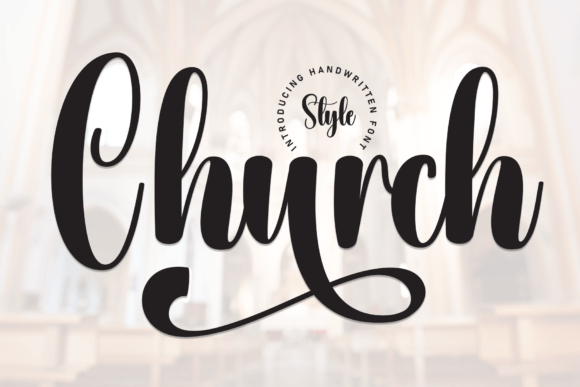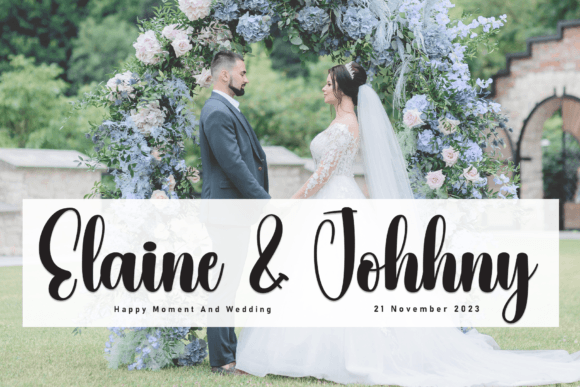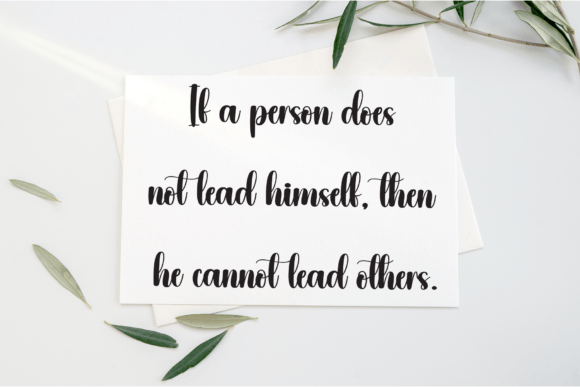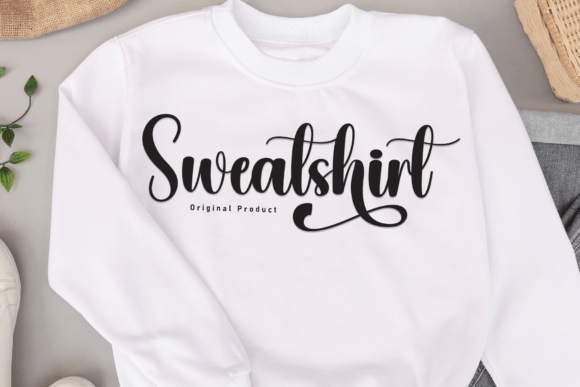
Church Font
About the Church Font
Welcome to the world of Church Font, a typeface that will inspire your next great project. Church is a sweet and friendly handwritten font. Its natural and unique style makes it incredibly fitting to a large pool of designs. The only limit is your imagination!